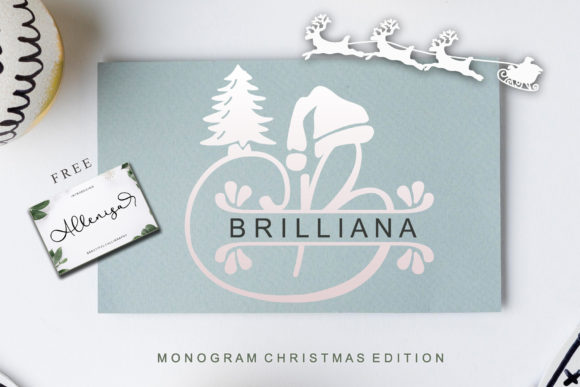
Journey into the realm of love and romance with Brilliana Monogram Font, a captivating decorative font that will make your designs bloom with elegance and charm. This exquisite font, crafted by the talented Letterafa Studio, is a masterpiece of creativity, specifically designed to add a touch of magic to your love poems and heartfelt creations.
Picture this: you're crafting a love letter, a heartfelt message to your beloved, or a poem that captures the essence of your emotions. As you type each word using Brilliana Monogram Font, the letters dance across the page like delicate petals carried by a gentle breeze. The flowing curves and intricate details of this font create a visual symphony that perfectly complements the tender sentiments you wish to express.
With Brilliana Monogram Font, your words take on a new life, imbued with an enchanting aura that captivates the heart. It's as if each letter whispers secrets of love, passion, and devotion, drawing your readers into a world of pure emotion. Whether you're designing wedding invitations, creating personalized gifts, or simply adding a touch of romance to your digital creations, Brilliana Monogram Font is your perfect companion.
But what truly sets Brilliana Monogram Font apart is its versatility. This font is not limited to love-themed projects; it shines in a myriad of creative endeavors. Its elegant curves lend themselves beautifully to logos, branding, social media posts, and even website designs. With Brilliana Monogram Font, your designs will exude sophistication and charm, leaving a lasting impression on your audience.
And the best part? Brilliana Monogram Font is PUA encoded, making it incredibly easy to access all of its glyphs and swashes. Unleash your creativity and explore the endless possibilities this font offers. Add a touch of whimsy to invitations, create eye-catching headlines, or design enchanting logos that speak volumes about your brand's personality.
With Brilliana Monogram Font, you'll never run out of inspiration. It's the perfect font for adding a touch of romance, elegance, and creativity to all your projects. So, let your imagination soar and allow Brilliana Monogram Font to transform your designs into masterpieces of beauty and charm.